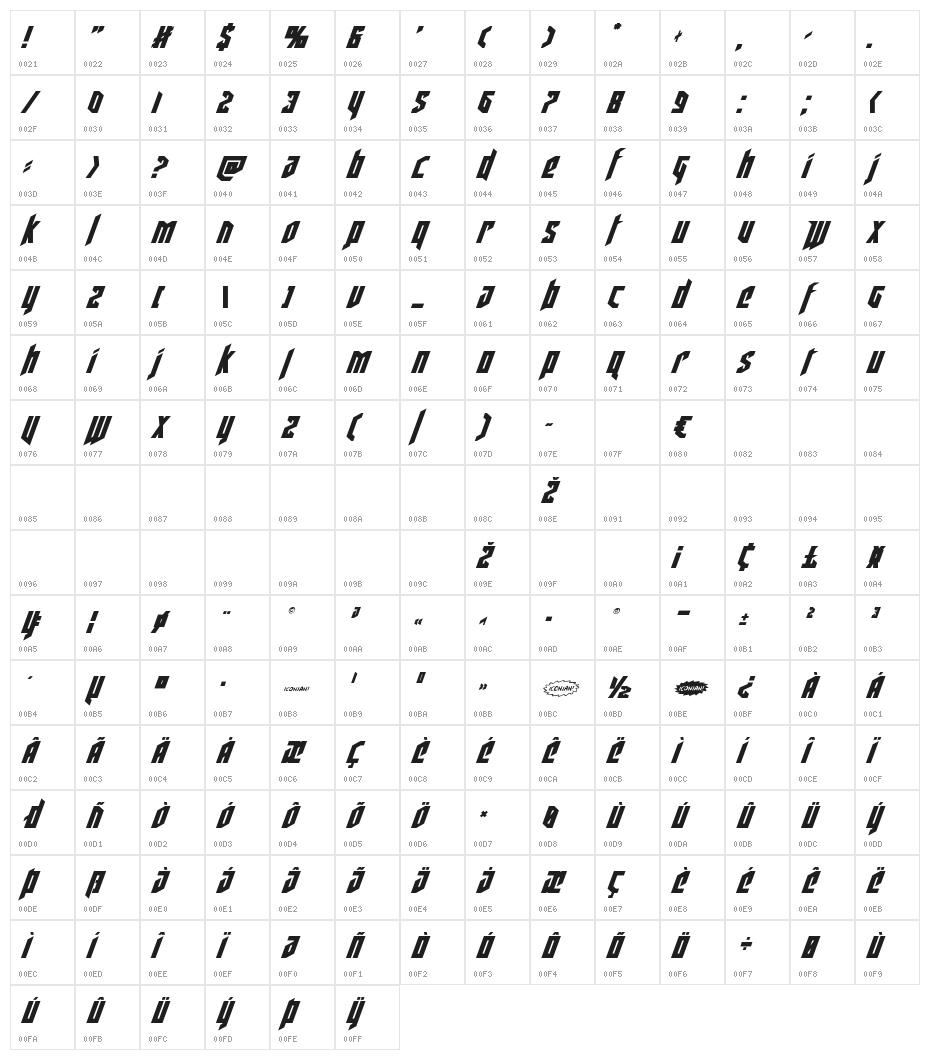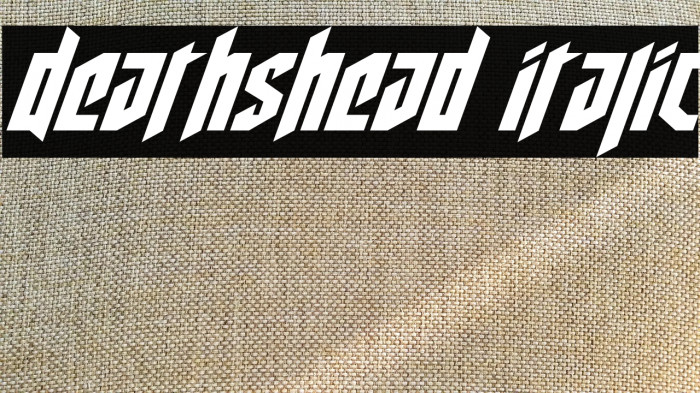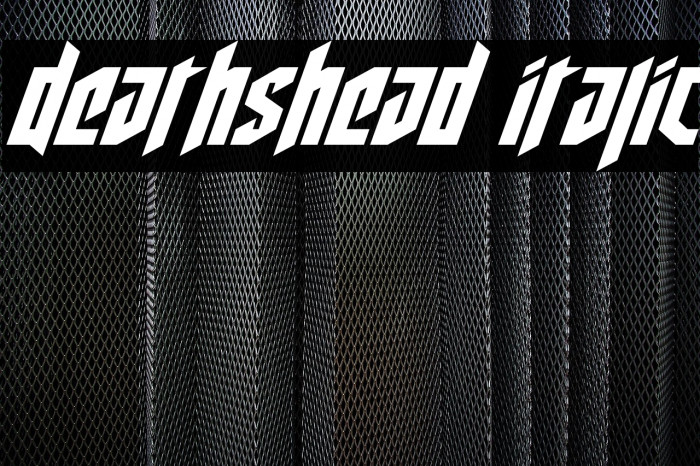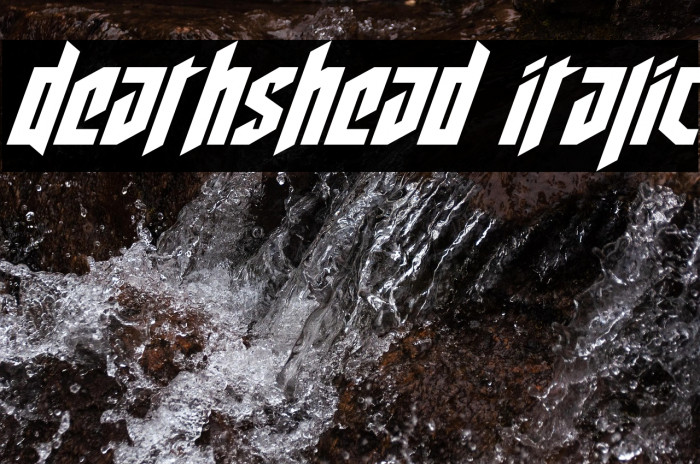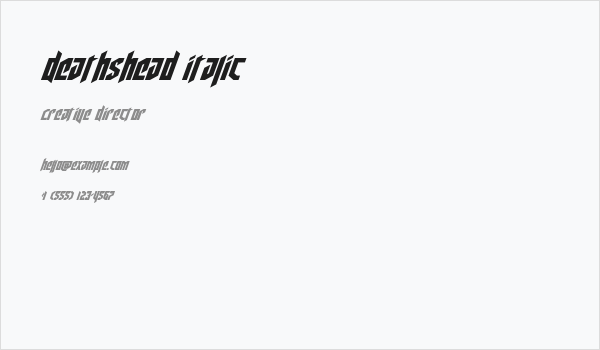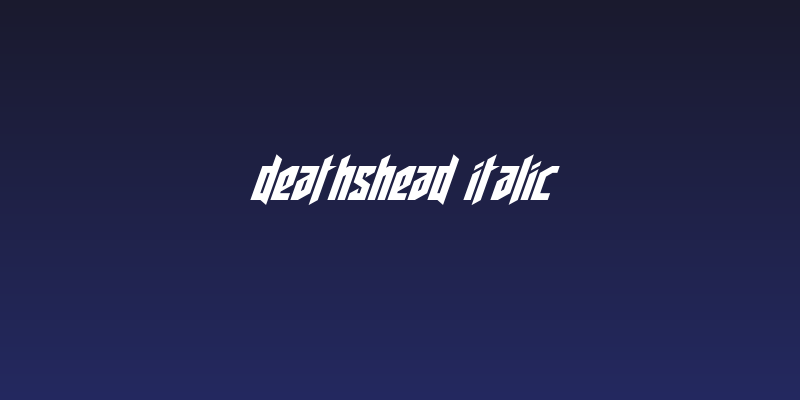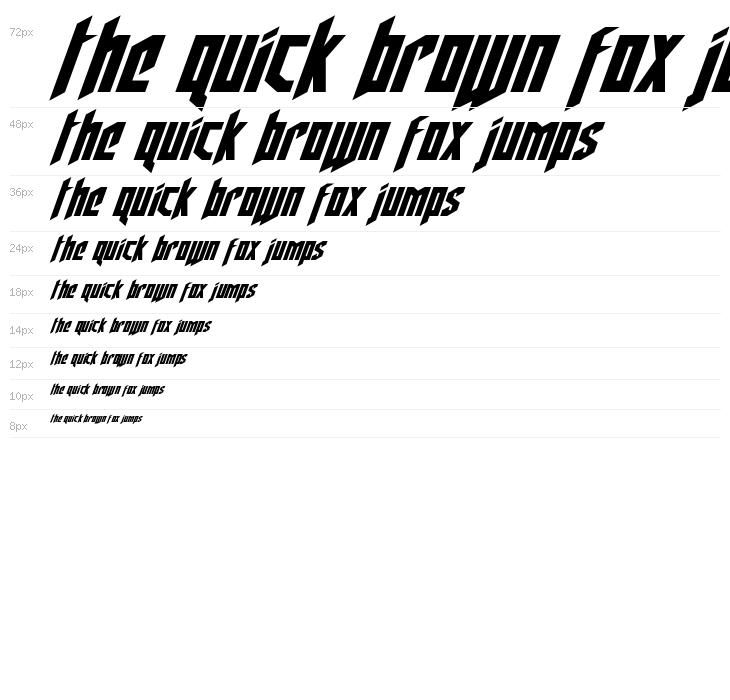
Deathshead Italic Font
Deathshead Italic Description
This font features a bold, angular design with sharp edges and a dynamic, italicized slant. The characters are heavily stylized, giving off a futuristic and aggressive vibe. The uppercase and lowercase letters maintain a consistent style, with exaggerated angles and a strong presence. Numbers and special characters follow the same design philosophy, ensuring uniformity across all glyphs. The font's boldness and unique style make it stand out, ideal for attention-grabbing designs.
| Proposed Projects | Ideal for projects that require a strong visual impact, such as video game titles, movie posters, or branding for extreme sports. |